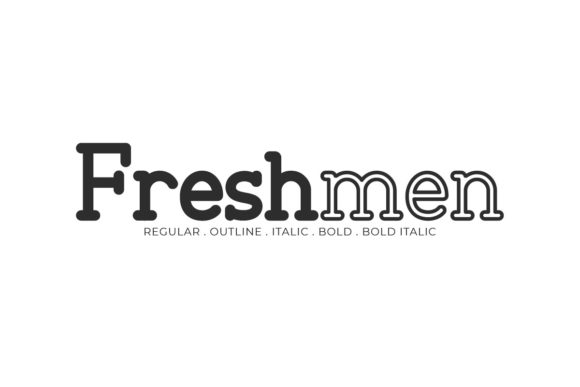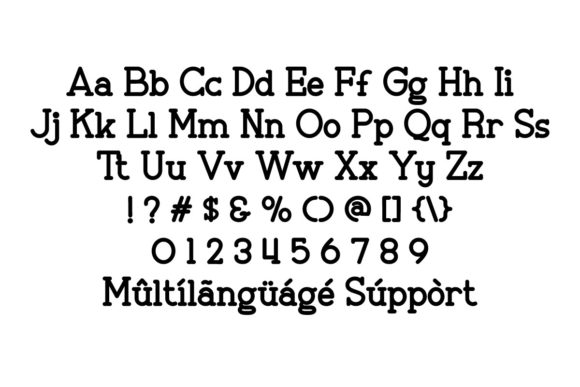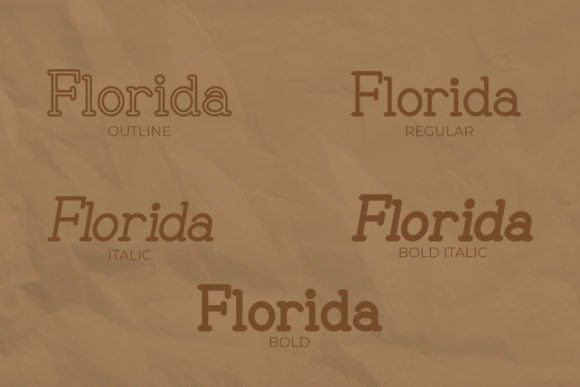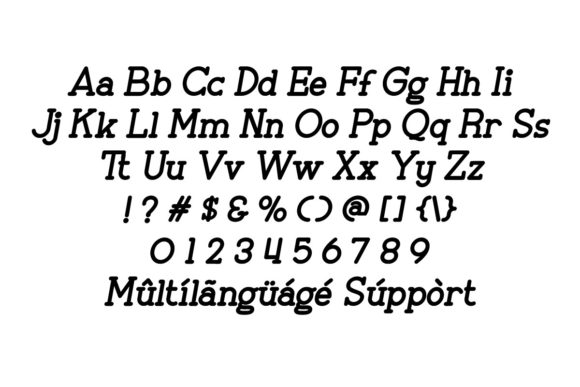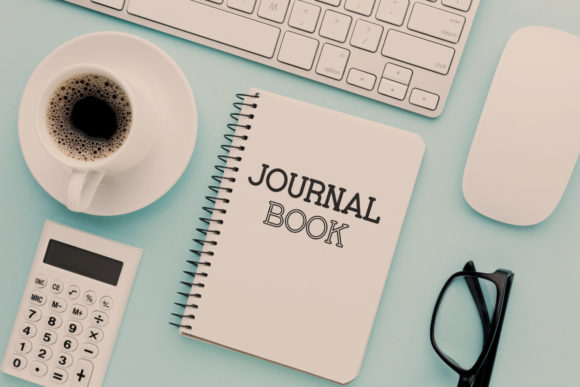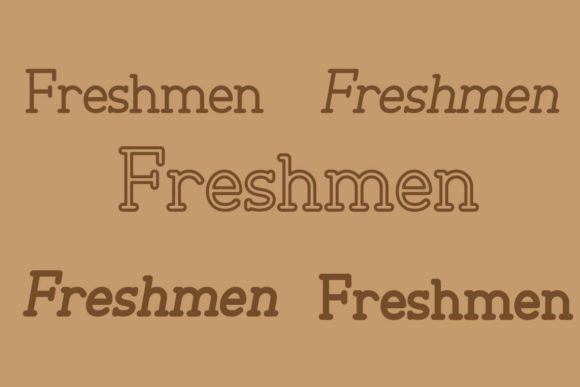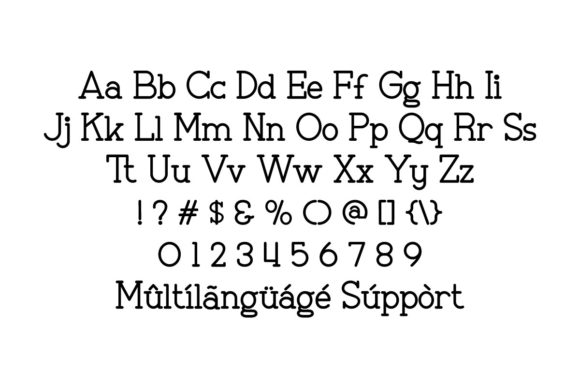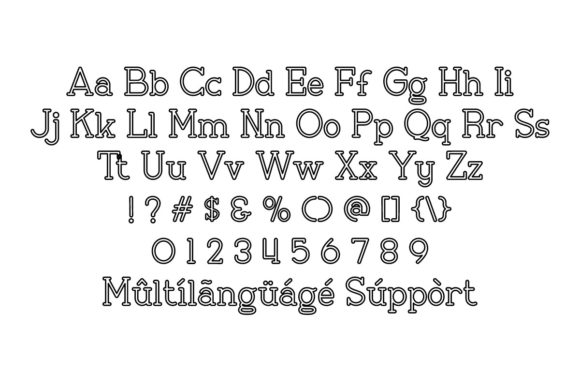
Freshmen
Freshmen: A Cool and Vintage Styled Slab Serif Font
Freshmen is a cool and vintage styled slab serif font. Whether you’re using it for crafts, digital design, presentations, or making greeting cards, this font has the potential to become your favorite go-to font, no matter the occasion!
Key Features of Freshmen
• Vintage Design: Offers a nostalgic and retro look suitable for various applications.
• Slab Serif Structure: Features thick, rectangular serifs typical of slab serif fonts.
• Versatile Application: Ideal for both print and digital media projects.
• Cool Aesthetic: Brings a unique and stylish touch to any design.
Ideal Uses for Freshmen
Freshmen’s unique characteristics make it particularly well-suited for:
When incorporating Freshmen into your designs, consider these tips:
• Use for headlines or short blocks of text to showcase its vintage style.
• Utilize its cool aesthetic across various creative projects to enhance visual appeal.
Freshmen is an excellent choice for designers looking to add a cool and vintage styled slab serif font to their typographic toolkit. Its ability to bring a nostalgic touch to various design projects makes it stand out in the world of typography. Whether you’re working on crafts, creating digital designs, or developing content that requires a retro vibe, Freshmen offers the perfect blend of style and functionality.
Furthermore, Freshmen’s unique design allows it to shine in various contexts. From vintage-inspired designs to more contemporary layouts that need a touch of nostalgia, this font can elevate your projects. Its striking yet functional style works particularly well in designs that require a thoughtful and engaging mood.
In conclusion, Freshmen is a font that truly captures the essence of creativity and impact in typography. Its ability to work well in both minimalist projects and more elaborate layouts showcases its flexibility. For those looking to add a touch of vintage charm to their work, Freshmen can enhance themed creations with its distinctive style. It’s the perfect choice for designers seeking to make a strong, stylish impact across a wide range of creative projects.